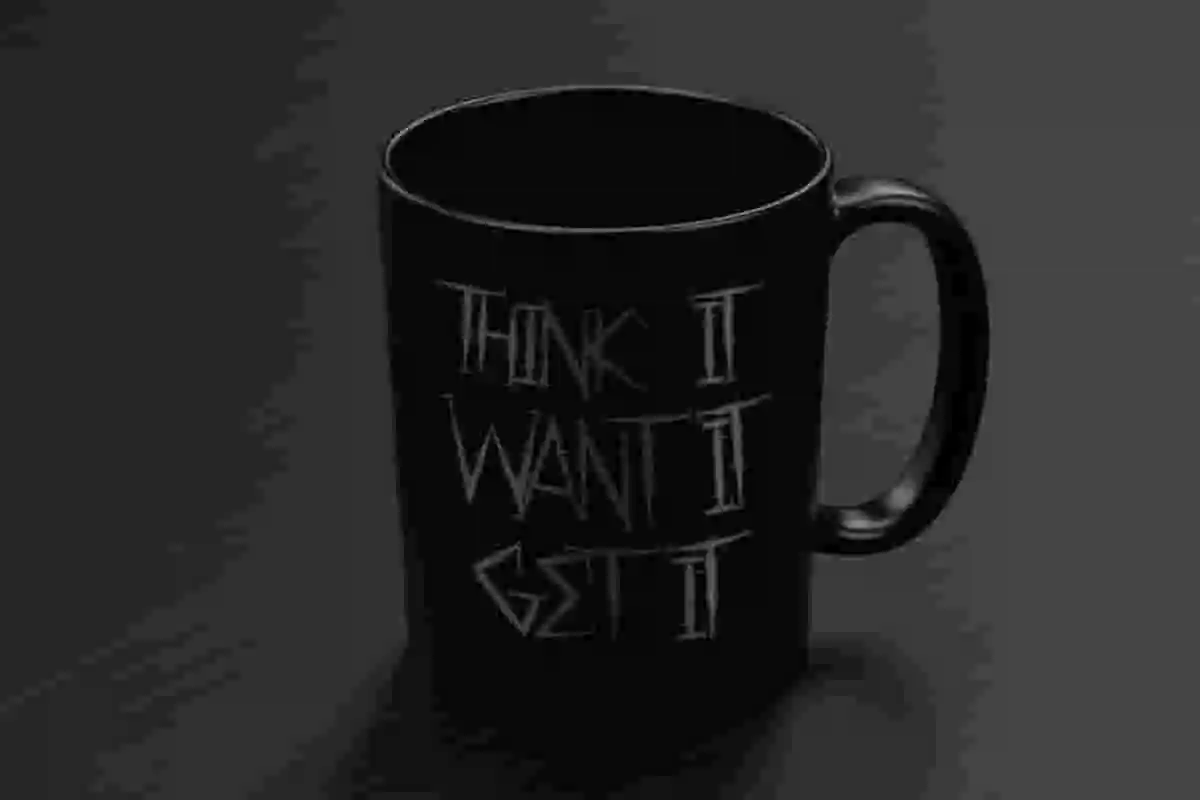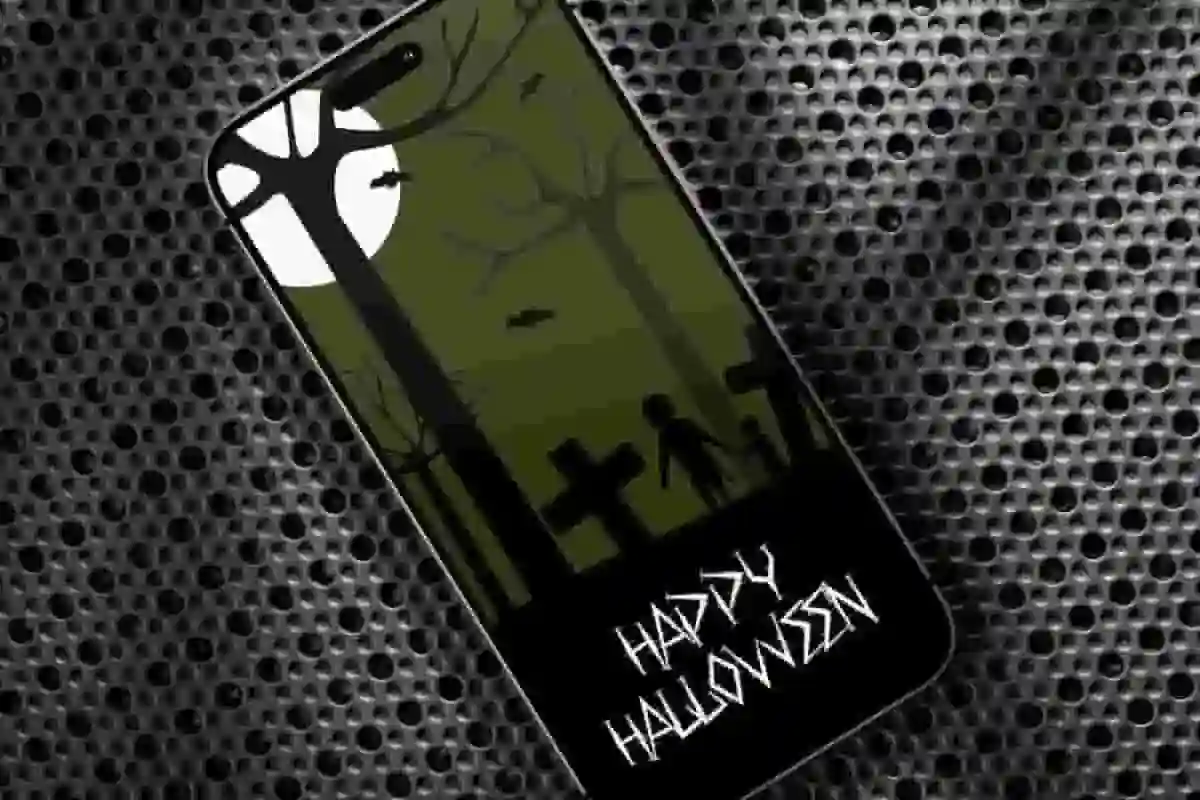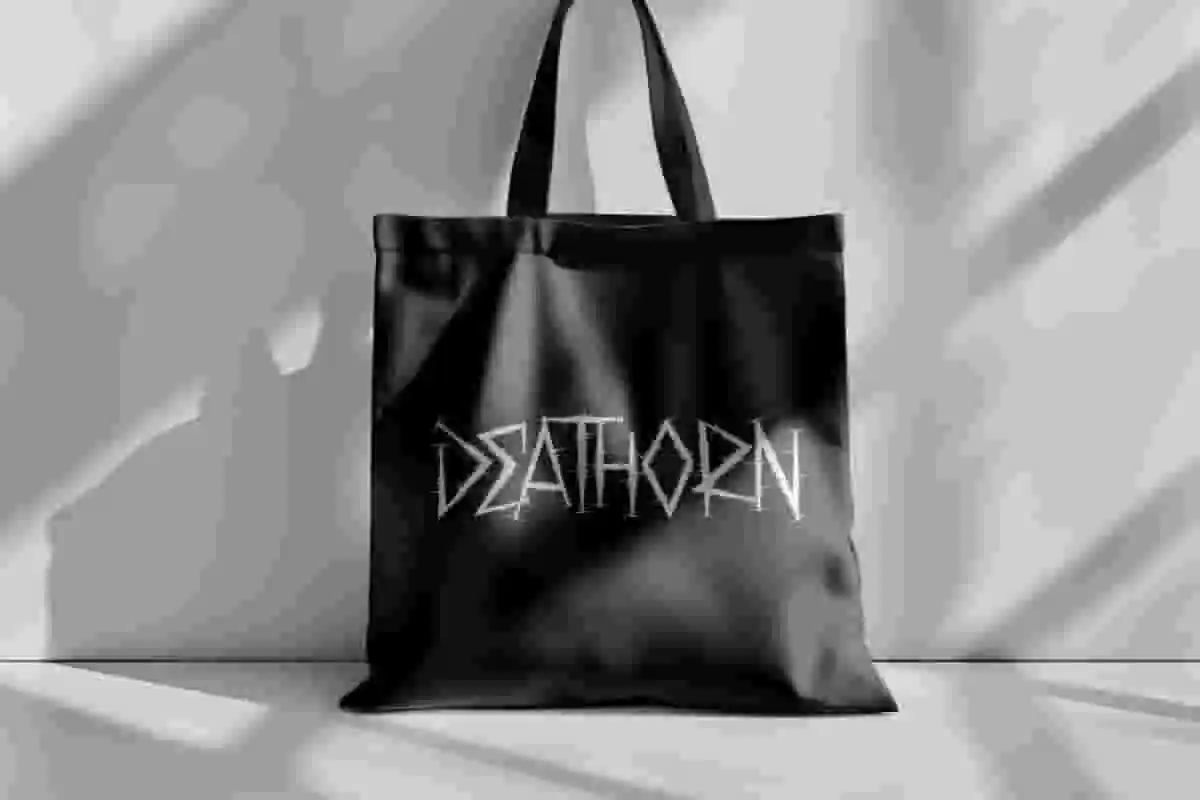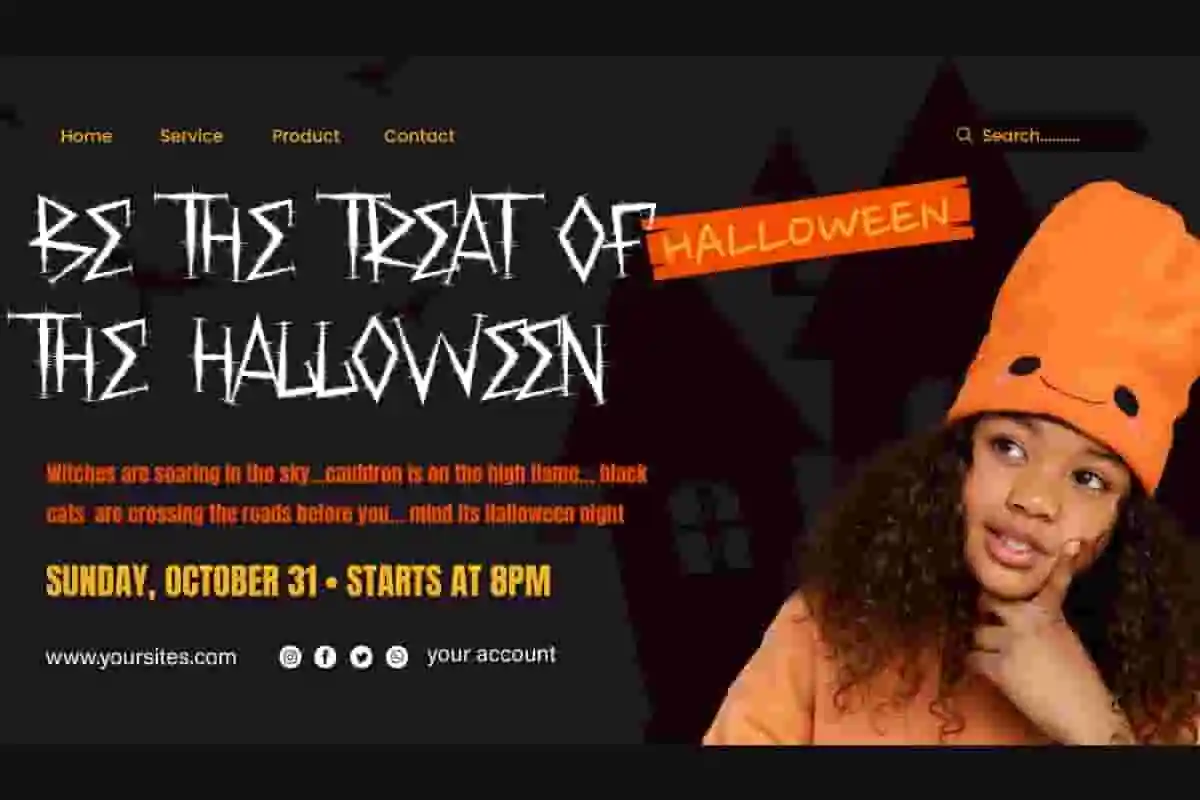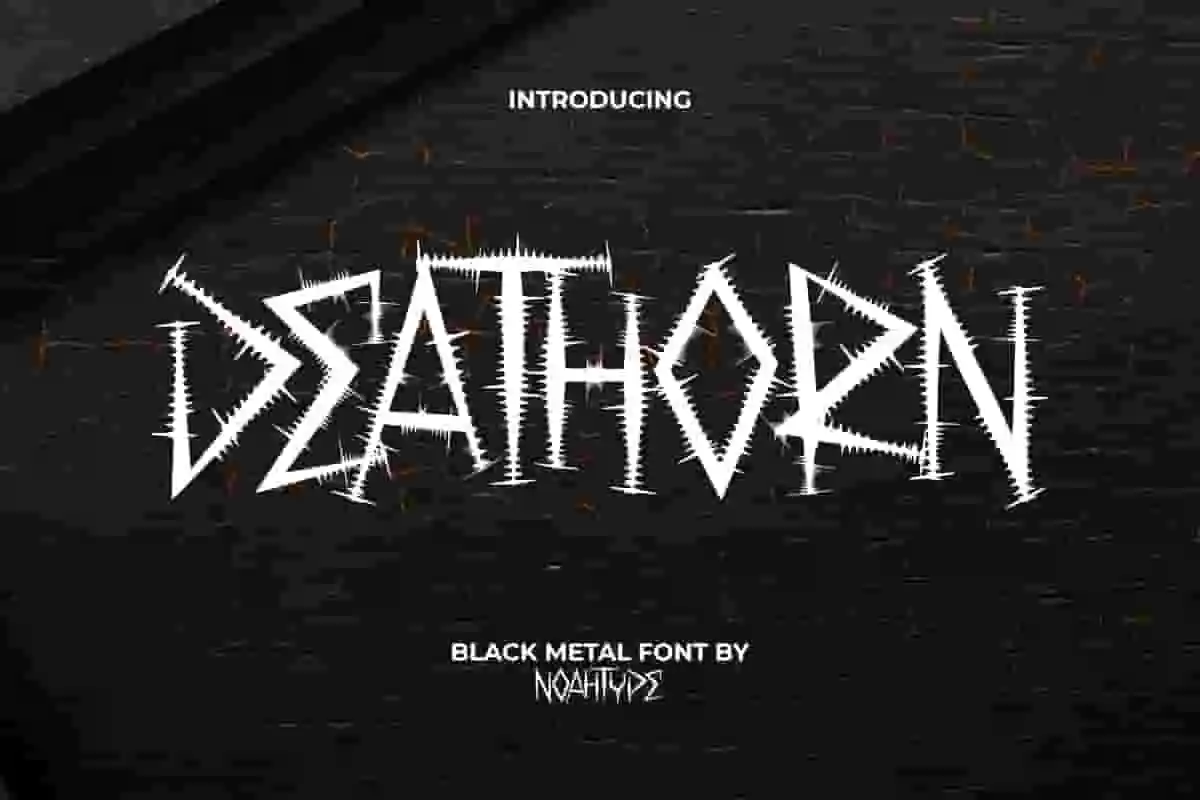
Deathorn Font is a sharp and harsh decorative black metal font, well made by NoahType. This font has a very good concept and details so it can convey a scary impression perfectly. It will be perfect for any designs, such as custom design, poster, label, brand image, cover, invitation, stationery, signage, marketing material, menu, printing, product packaging, quotes, website, and many more!
Deathorn Font includes full set of ALL CAPS for Uppercase and Lowercase Basic Characters, Numerals, Punctuation, and Symbol. This font will make your design looks creepy and also a perfect choice for many industries, such as fashion, game, movie, event or festival, barber shop, accessories, advertising, art, café, printing, publishing, etc.